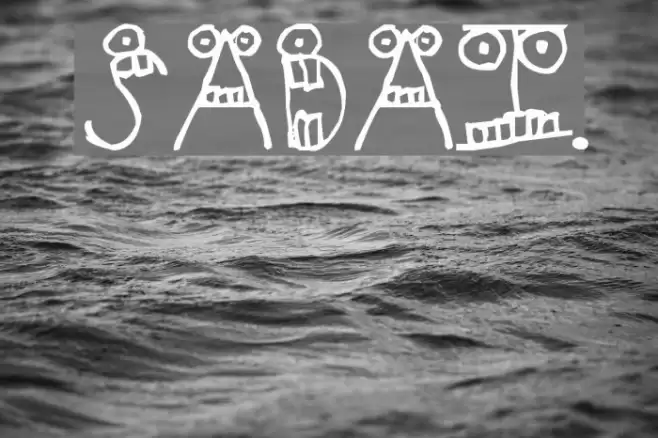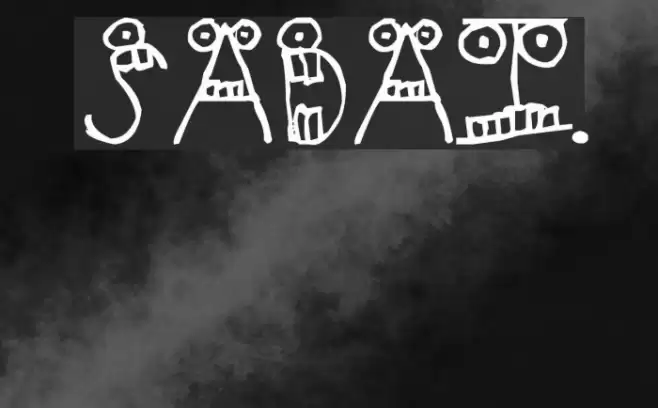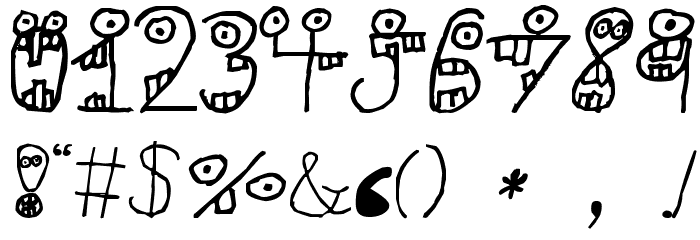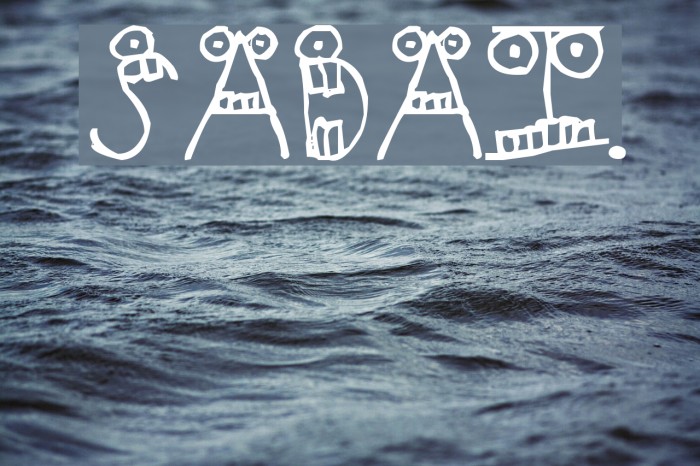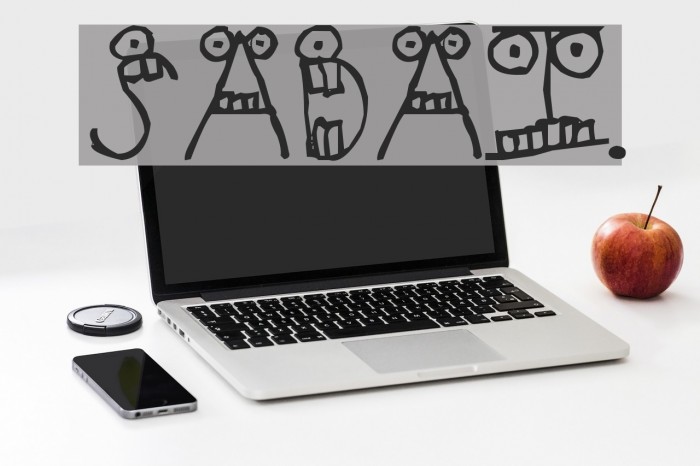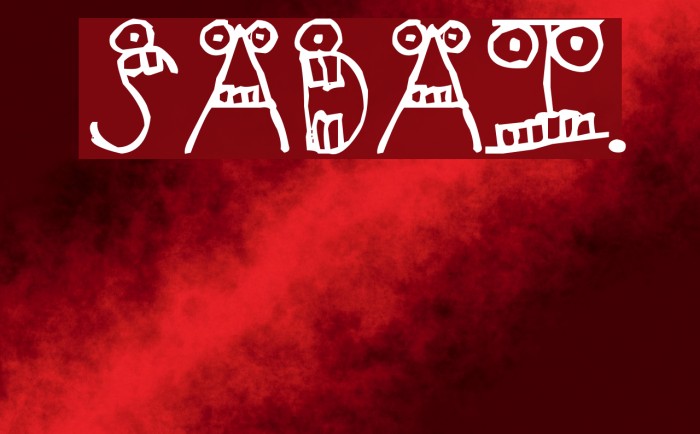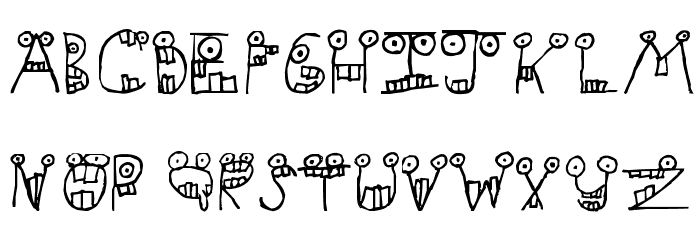
Slapstick Dental Inc. Font
Slapstick Dental Inc. Description
This playful and whimsical font features characters with exaggerated, cartoonish expressions and quirky details. Each letter and number is designed with a unique personality, incorporating elements like eyes, teeth, and various facial expressions. The style is reminiscent of doodles or sketches, with uneven lines and a hand-drawn feel. The font's irregular shapes and spontaneous design make it stand out, offering a humorous and lighthearted vibe. It's perfect for projects that require a fun and informal touch, capturing attention with its distinctive and lively appearance.
A playful, cartoonish font with quirky, expressive characters from Decorative fonts.
- Proposed Projects: Ideal for children's books, comic strips, playful branding, and creative posters.